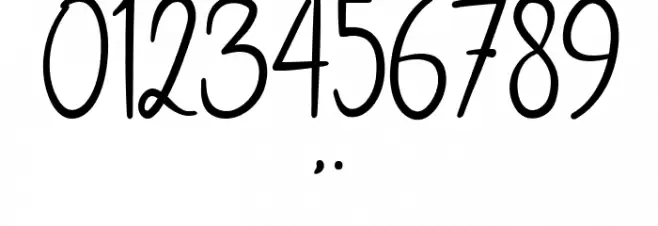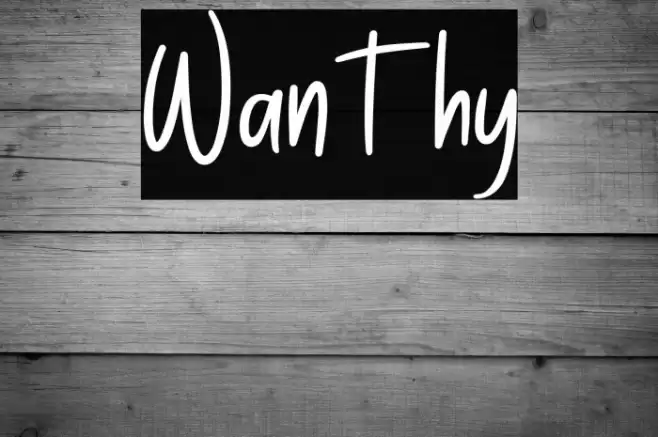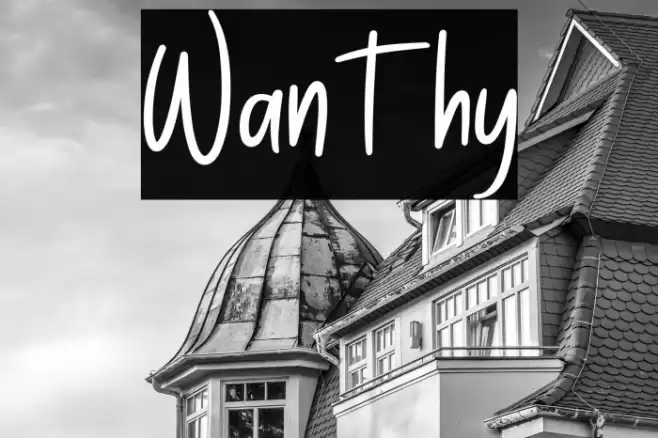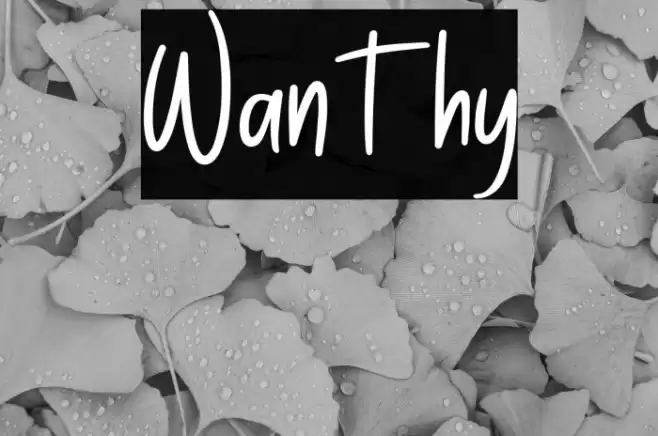
Wanthy Font
Wanthy Description
This font features a playful and casual handwritten style, characterized by its tall, narrow letters and slightly irregular strokes. The uppercase letters are bold and prominent, while the lowercase letters maintain a consistent flow with a touch of whimsy. The numbers are clear and easy to read, matching the overall informal aesthetic. The special characters are simple yet effective, complementing the font's overall design. This font is perfect for projects that require a personal touch or a friendly, approachable vibe.